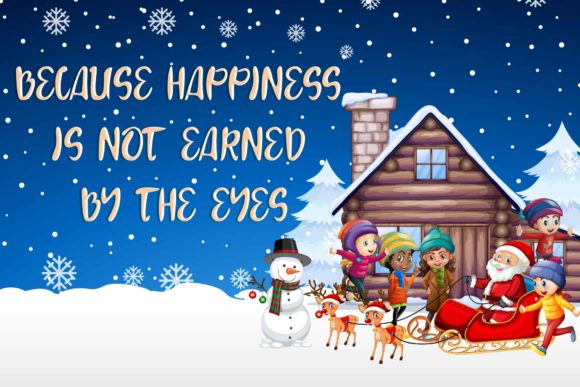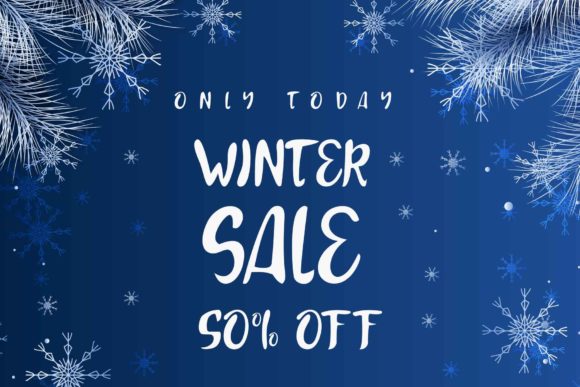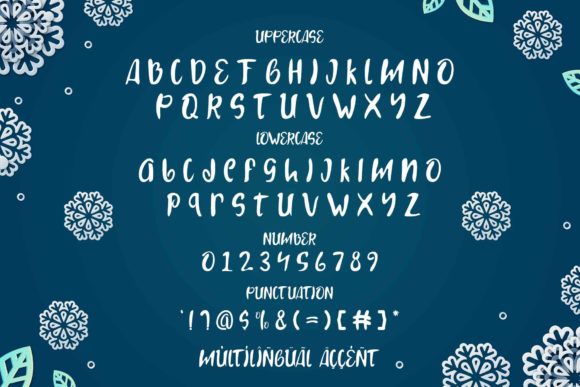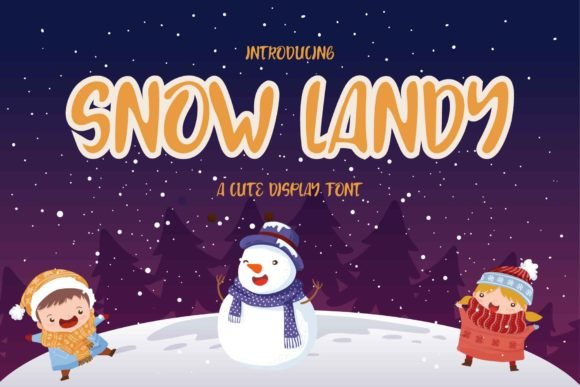
Introduction to Snow Landy Font
Snow Landy is a fun display font featuring the perfect amount of trendiness.
Whether you’re using it for crafting, digital designing, presentations or greeting cards making, it’s perfect .
Key Features of Snow Landy Font
Why Choose Snow Landy Font?
Snow Landy Font offers exceptional quality and versatility, making it a valuable addition to your design toolkit. Whether you’re creating for personal projects or commercial use, Snow Landy Font delivers professional results.